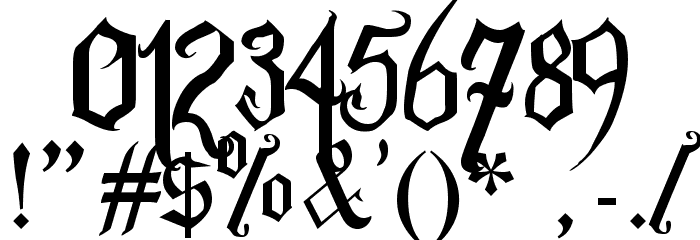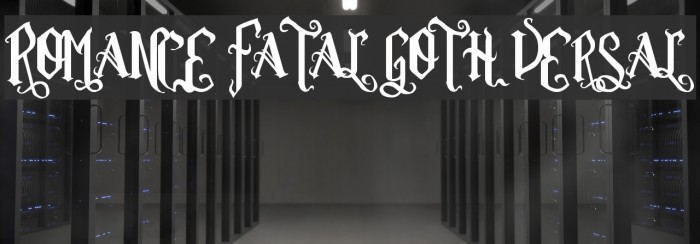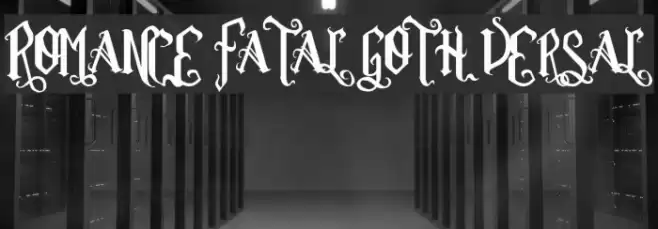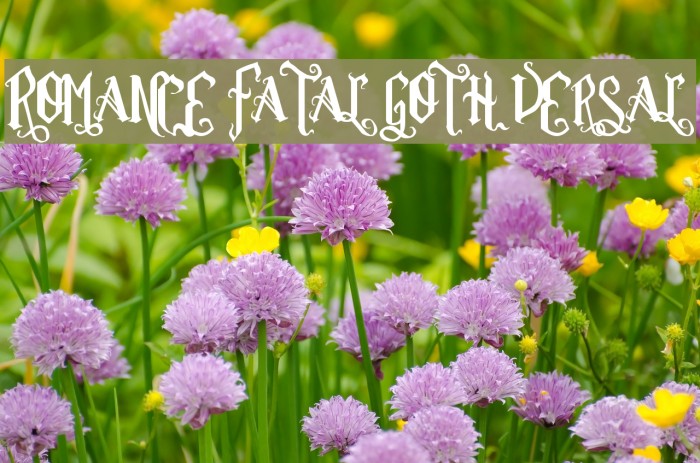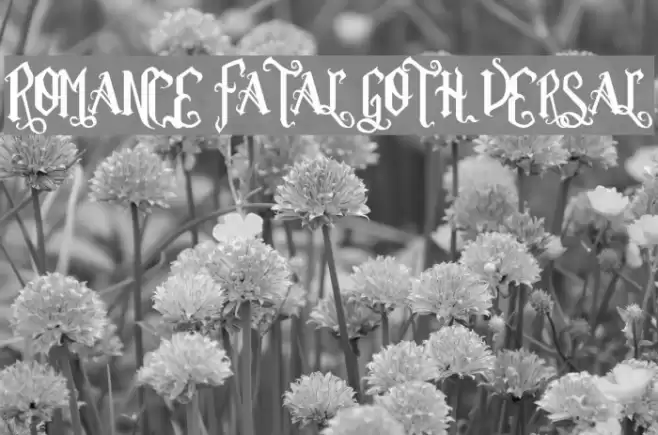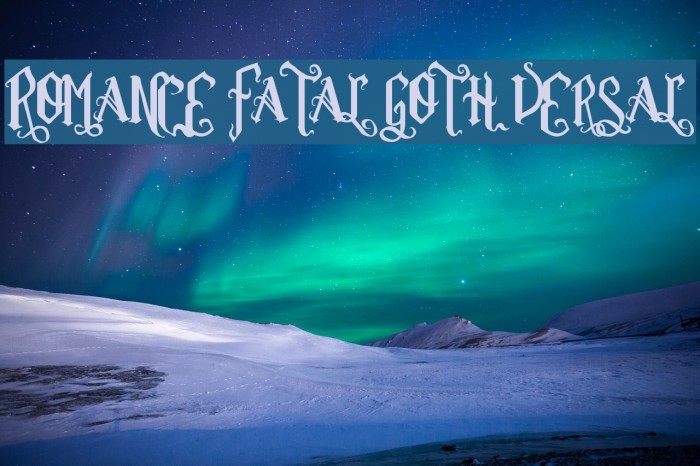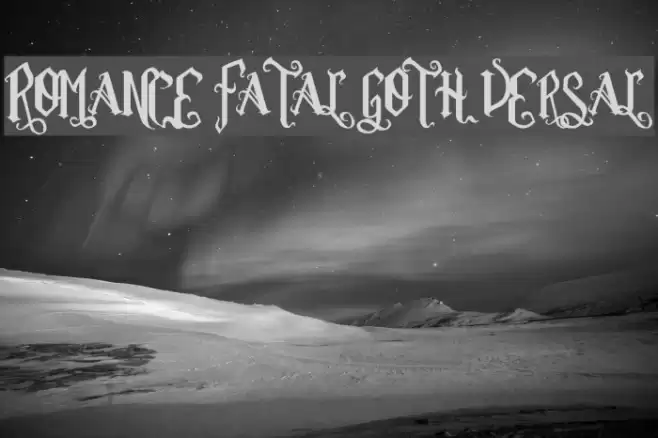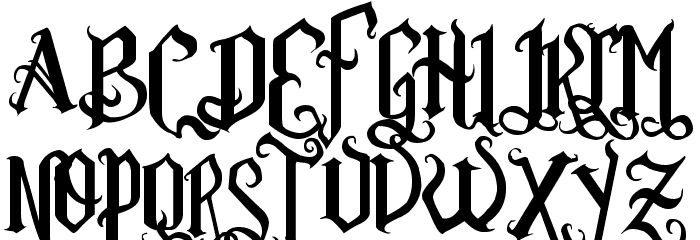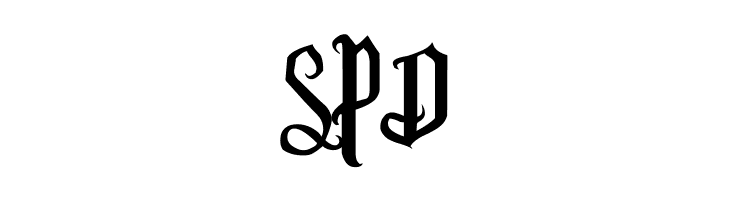
Romance Fatal Goth Versal Font
Romance Fatal Goth Versal Description
This font features a dramatic and ornate style, reminiscent of Gothic calligraphy with a modern twist. The uppercase letters are characterized by sharp, angular lines and intricate flourishes that give them a regal and mysterious appearance. The lowercase letters maintain the same level of detail, with elongated strokes and decorative elements that enhance their elegance. The numerals are equally stylized, with unique curves and angles that make them stand out. Special characters are designed with the same attention to detail, ensuring consistency throughout the typeface. This font is perfect for creating a bold and striking visual impact, suitable for projects that require a touch of drama and sophistication.
| Proposed Projects | Ideal for book covers, posters, logos, and any design requiring a Gothic or medieval aesthetic. |